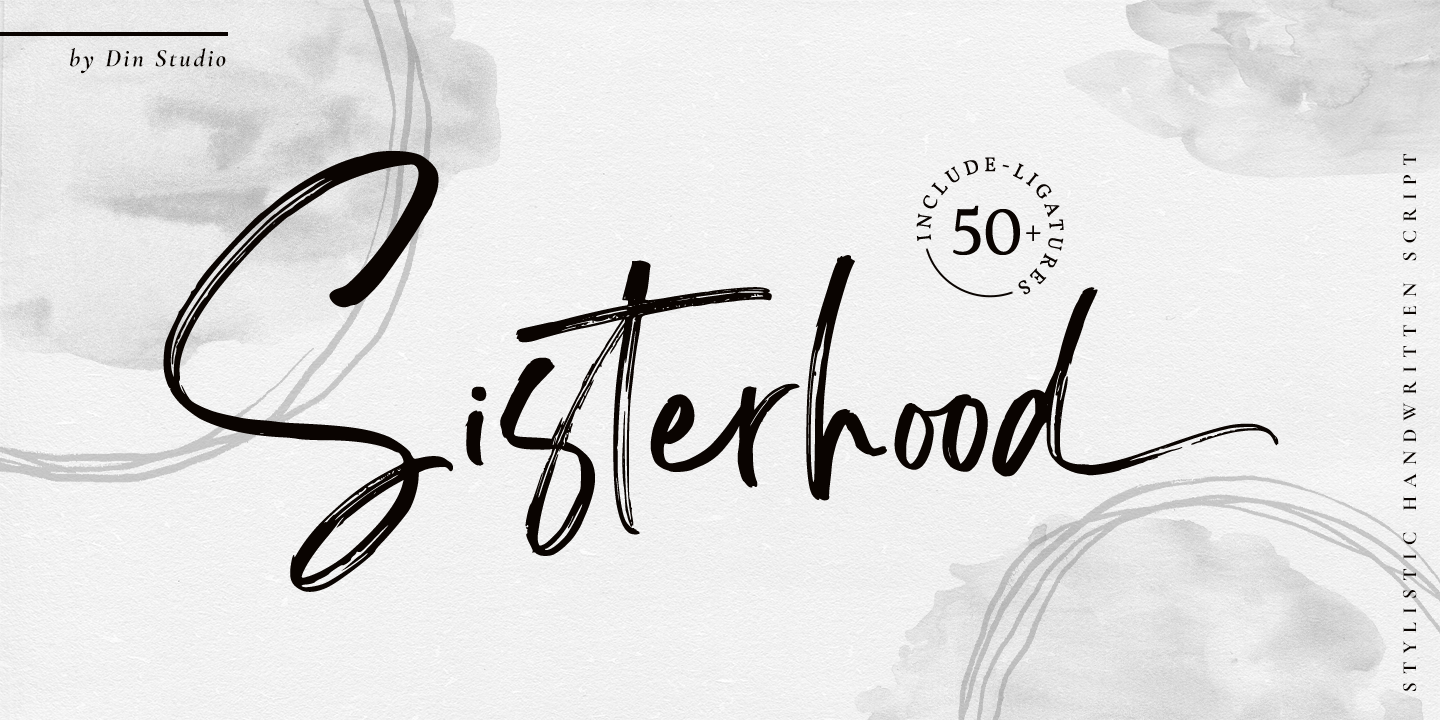
Sisterhood Font is perfect for women's empowerment campaigns, female-owned business branding, sorority materials, girls' club signage, feminist publications, women's health organizations, supportive community projects, and inspirational quotes that require strong, unified typography with solidarity character.
This Sisterhood Font is exciting because it embodies the power of female unity and support, featuring bold yet approachable letterforms that convey strength through togetherness, creating an inclusive visual voice that celebrates women's bonds while maintaining modern appeal for contemporary feminist and community-focused communications.
The Sisterhood Font family includes confident weights with supportive character styling, complete uppercase and lowercase alphabets, empowering numerals, inclusive punctuation, and unity-inspired symbols that provide comprehensive typography solutions for women-centered organizations and community projects requiring solidarity aesthetics.
Perfect for creating empowering communications and supportive brand identities, Sisterhood Font Free Download delivers the unifying typography that transforms text into powerful statements of female solidarity and strength. This distinctive typeface celebrates the bonds between women, making it essential for projects promoting women's empowerment, community support, female entrepreneurship, and any initiative that honors the strength found in sisterhood and mutual support.